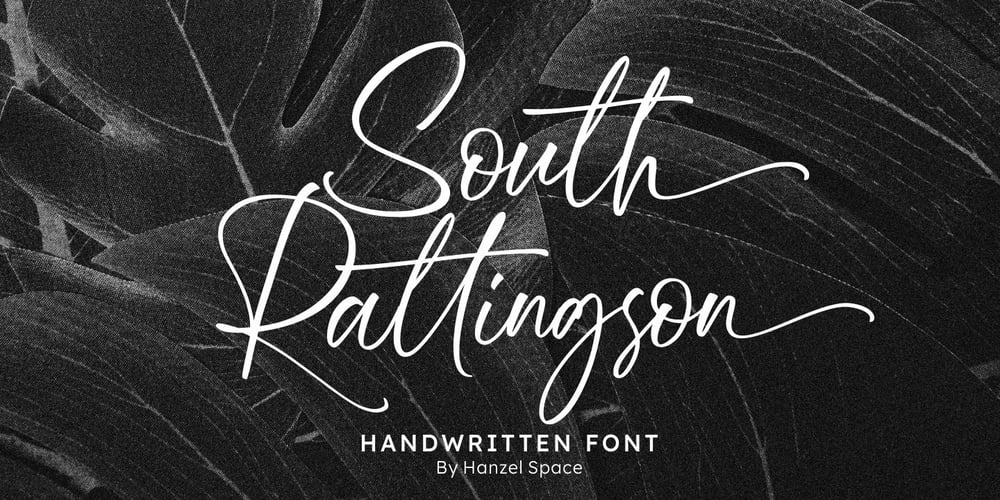
South Rattingson Font Family was designed by Hanief Farandi and published by Hanzel Space. South Rattingson contains 1 styles and family package options. Introducing the latest product “South Rattingson” this font is made by handwriting to make it look professional and looks natural as well as curves that have characters in each letter. “South Rattingson” is perfect for branding projects, homeware designs, product packaging – or simply as a stylish text overlay to any background image.Thank you!